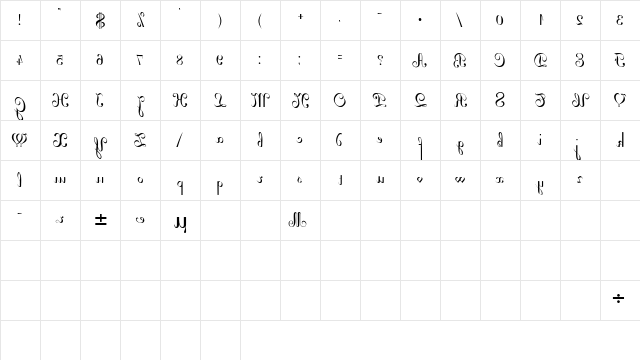
ArabescoScriptSSK backwards Regular
Design Context for ArabescoScriptSSK backwards Typeface
ArabescoScriptSSK backwards brings a calligraphic fluidity to the page — its connecting strokes and expressive curves give it an unmistakably human quality.
Font Pairing: Combine ArabescoScriptSSK backwards with a simple geometric sans for maximum contrast — the tension between flowing curves and clean structure is a classic typographic pairing.
Pro Tip: Pair ArabescoScriptSSK backwards with a clean sans-serif for supporting text. The contrast between fluid script and geometric structure creates an elegant typographic hierarchy.